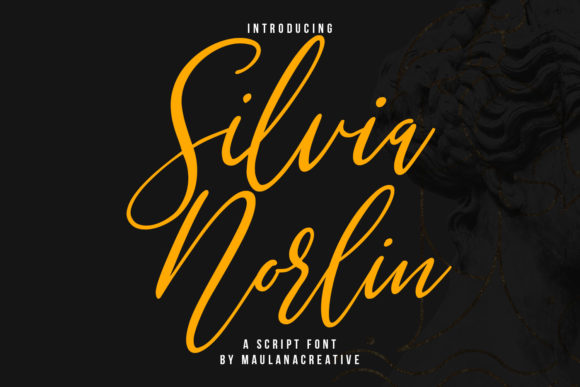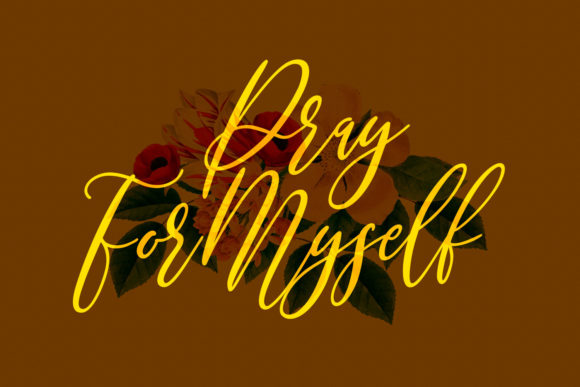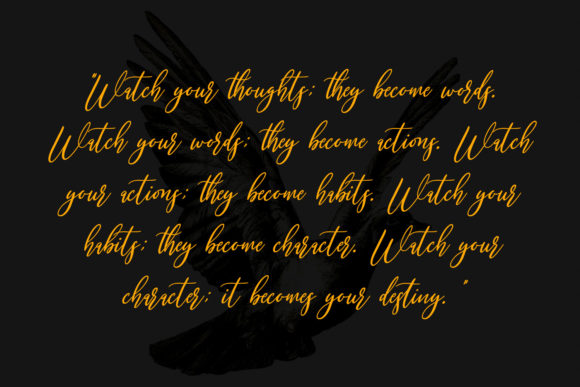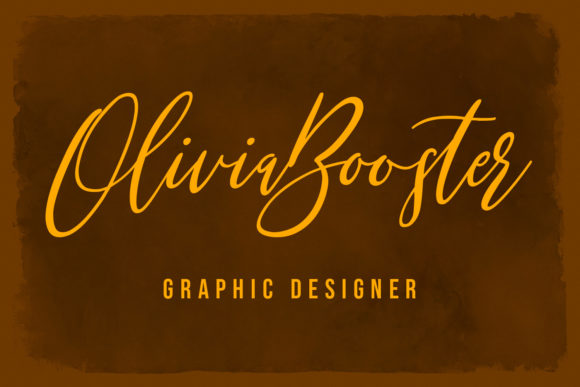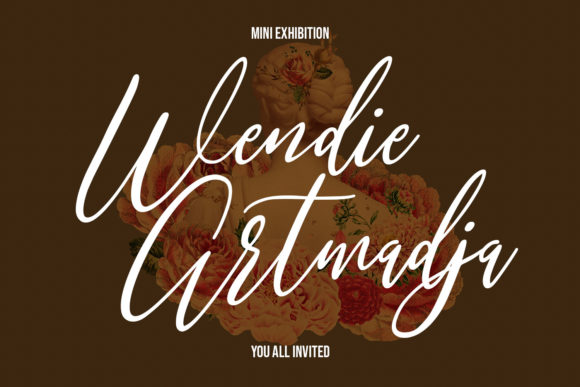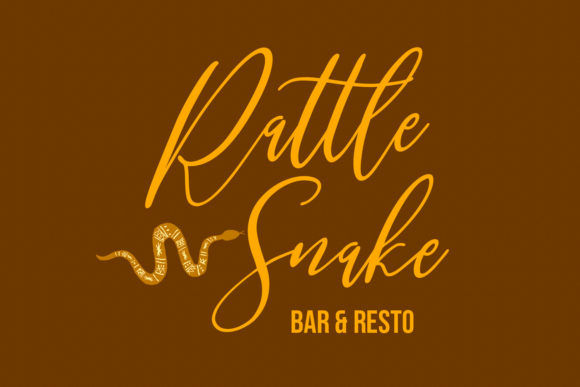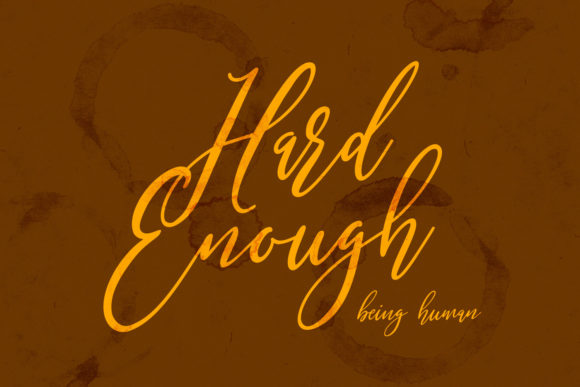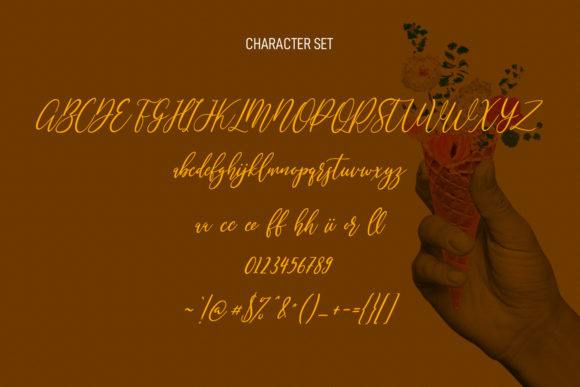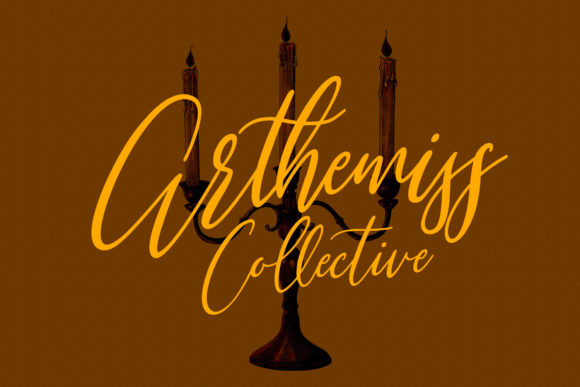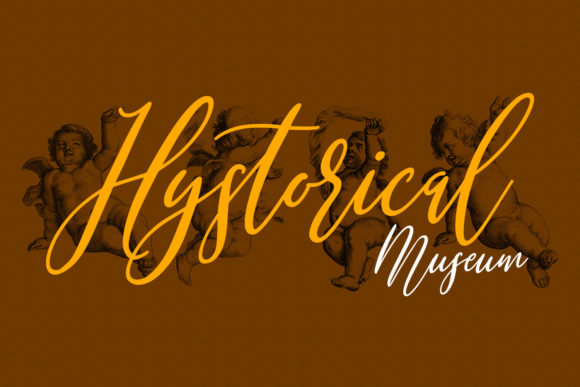
Silvia Norlin Font
About Silvia Norlin Font
Silvia Norlin is a relaxed and flowing script font that exudes coolness and class. This font was particularly crafted for those who need a beautiful and refreshing look to their designs.